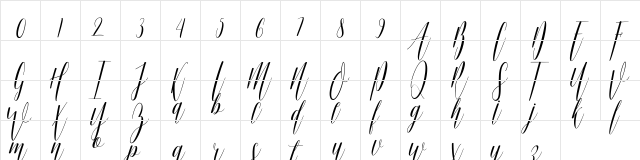
Ellisa Regular
| Foundry | Bonjour Type |
| Designer | Rachma |
Design Context for Ellisa Typeface
Ellisa is a composed and adaptable typeface that performs quietly and consistently across a wide range of design contexts.